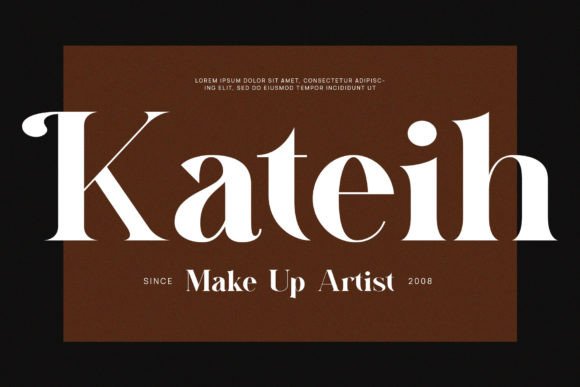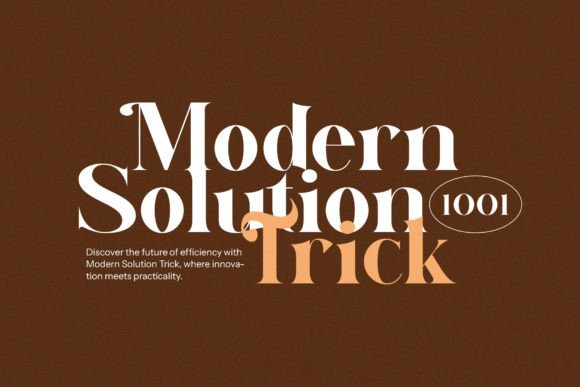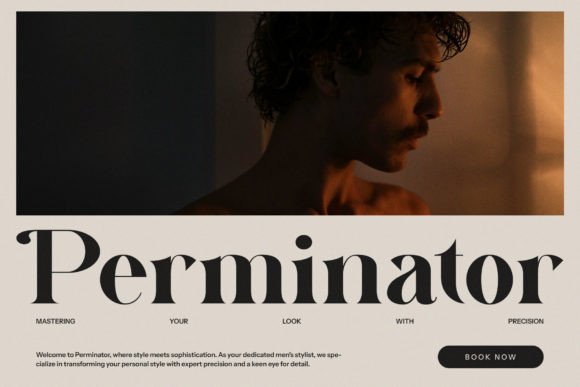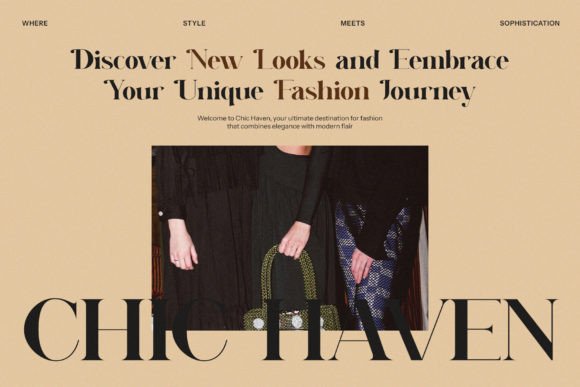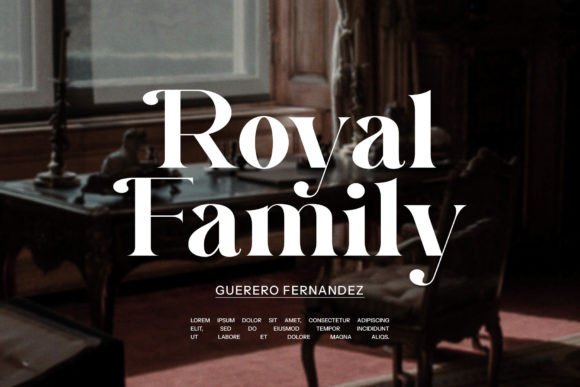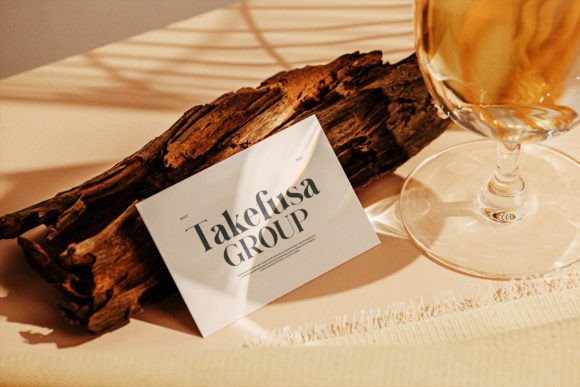
Introduction to Megist Font Font
Fonts play a crucial role in design, and the Megist Font font is a typeface that brings both character and versatility to any project. Whether you’re working on a branding project, a website, or a print design, the Megist Font font offers a unique style that can elevate your work.
Megist is a sophisticated ligature serif from us.
This typeface has been made carefully to make sure it has premium quality and a luxury feel The ligatures make this typeface unique and stand out rather than the regular serif font.
Key Features of Megist Font Font
Why Choose Megist Font Font?
The Megist Font font is more than just a typeface – it’s a design tool that helps you communicate your message with style and clarity. Its unique character set and versatile design make it suitable for a wide range of applications, from elegant invitations to bold headlines.
With its carefully crafted letterforms and balanced proportions, the Megist Font font ensures readability and visual appeal across all mediums.
What makes Megist Font font special?
The Megist Font font stands out with its unique design, exceptional readability, and versatility across various design applications.